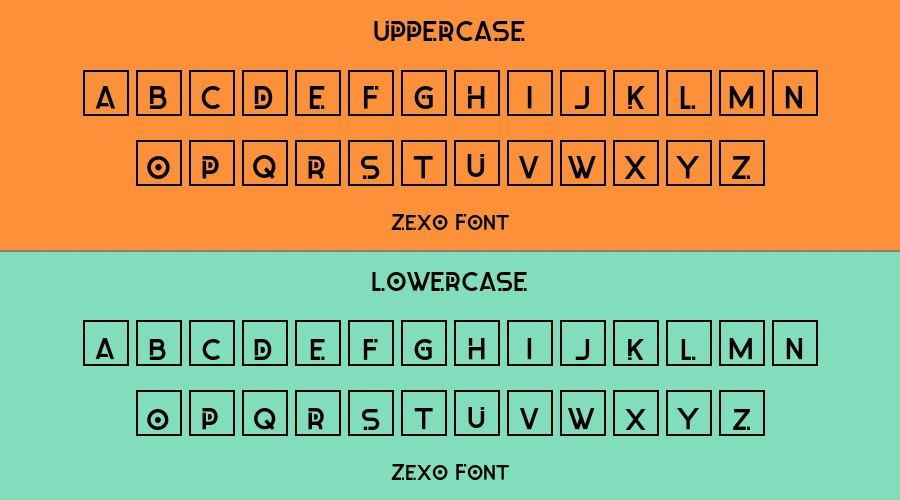
About Zexo Font
Designed with precision, Zexo Font merges balanced weights with functionality in every character. This versatility makes it particularly effective for merchandise graphics, where reliability and artistic merit directly impact communication quality. Each letterform demonstrates meticulous craftsmanship.
Technical excellence shines through elements like tapered strokes and decorative caps, enhancing typographic versatility. In footnotes settings, Zexo Font proves its worth through superior readability. The thoughtful execution of loop structure and technical innovation ensures professional results.